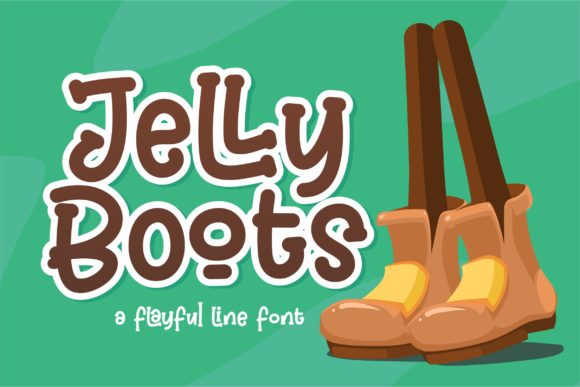
Embrace the vibrant energy of Jelly Boots Font, a captivating display font designed to ignite your creativity and transform your designs into remarkable visual masterpieces. This playful and versatile font exudes an infectious charm that instantly captivates the senses, making it the ultimate choice for expressing your unique personality and style.
Step into a world of endless possibilities with Jelly Boots Font, where imagination and expression collide. With its playful and energetic vibe, this font is the perfect companion for unleashing your creativity and creating designs that resonate with your audience. Whether you're crafting eye-catching posters, vibrant social media graphics, or unique branding materials, Jelly Boots Font is your passport to a world of captivating visual experiences.
Discover the allure of Jelly Boots Font and prepare to be mesmerized by its ability to transform ordinary words into extraordinary works of art. Its casual charm and down-to-earth appeal make it incredibly versatile, seamlessly adapting to a multitude of design projects. From letterheads and titles to stationery and invitations, Jelly Boots Font effortlessly elevates your creations, adding a touch of whimsy and delight.
Dive headfirst into the world of Jelly Boots Font and unleash your inner creativity. Its user-friendly nature makes it perfect for both seasoned designers and those just starting their design journey. With its intuitive interface and comprehensive set of features, Jelly Boots Font empowers you to create stunning designs without any hassle.
Don't miss out on the chance to add Jelly Boots Font to your design arsenal and elevate your projects to new heights. Its endless versatility and captivating charm will leave a lasting impression on your audience, ensuring that your designs stand out from the crowd. Experience the magic of Jelly Boots Font today and embark on a creative journey like no other.